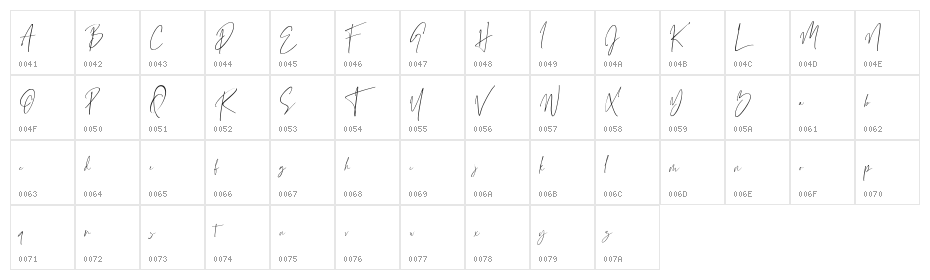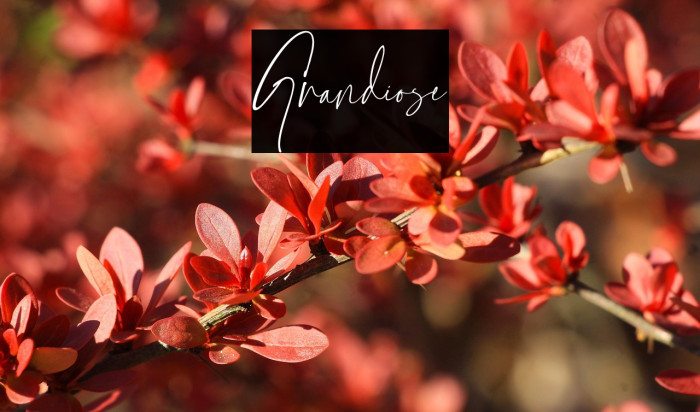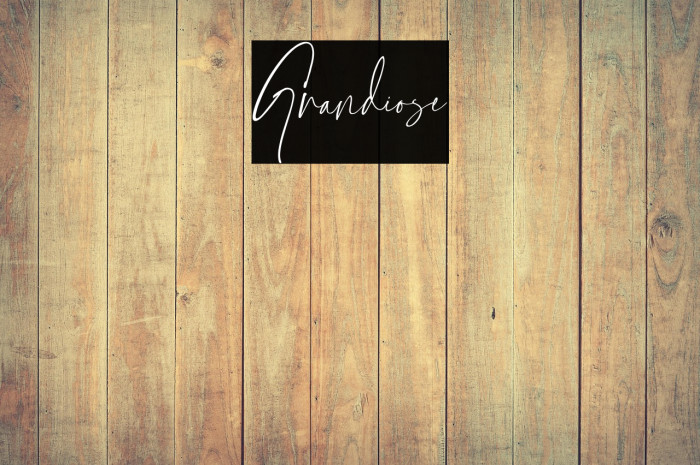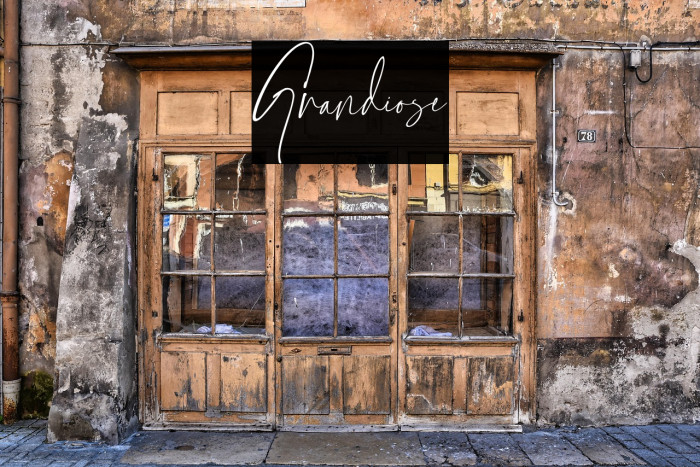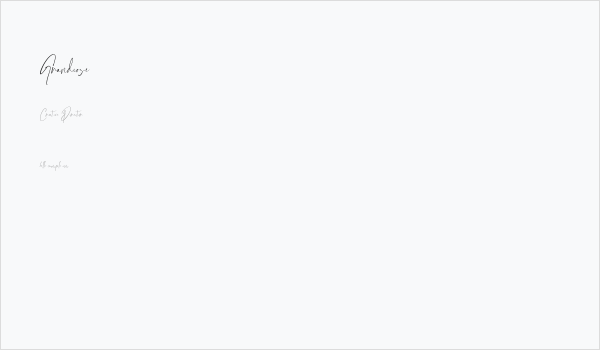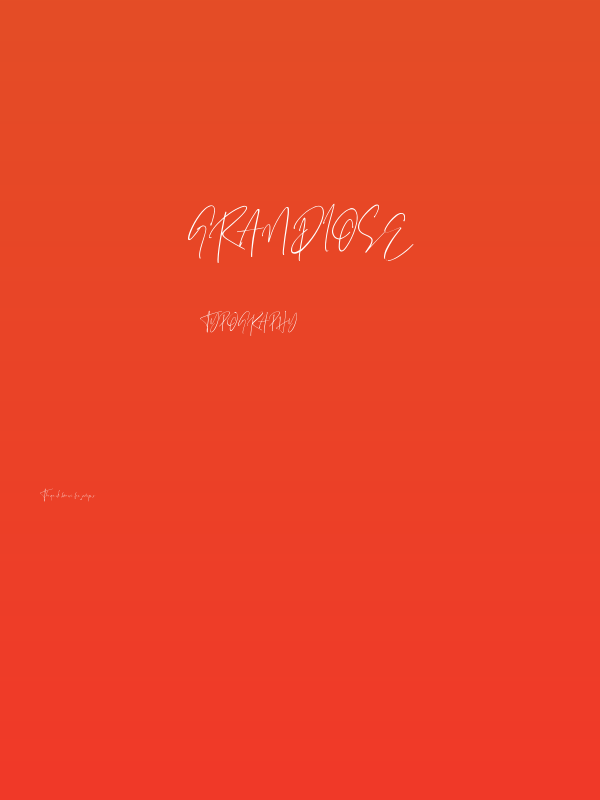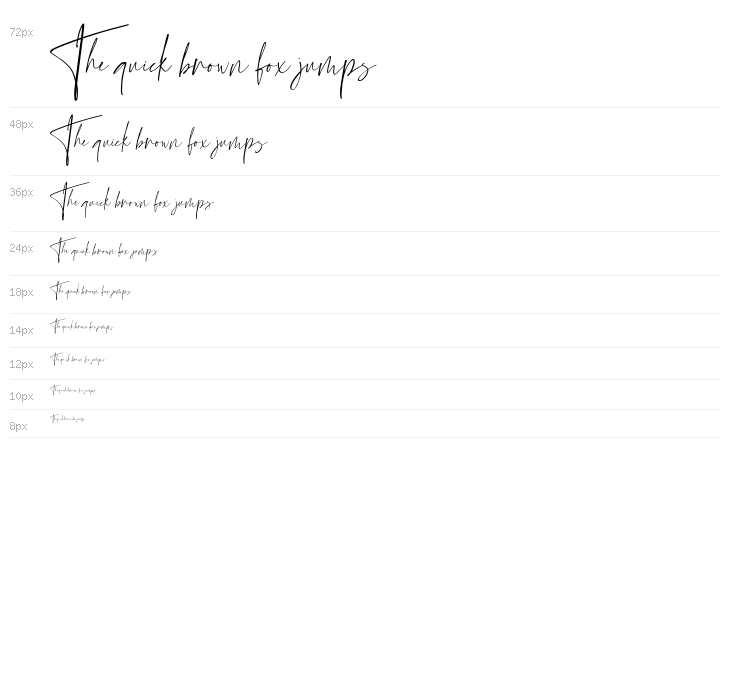
Grandiose Font
Grandiose Description
This font features an elegant and flowing script style, characterized by its sweeping curves and fluid lines. The uppercase letters are bold and dynamic, with a sense of movement that adds a touch of sophistication. The lowercase letters maintain a delicate balance, offering a more refined and subtle appearance. The overall design is reminiscent of handwritten calligraphy, with a modern twist that makes it suitable for contemporary applications. The strokes vary in thickness, providing a medium contrast that enhances readability while maintaining an artistic flair. This font is perfect for projects that require a personal and stylish touch.
| Proposed Projects | Ideal for wedding invitations, branding, greeting cards, and elegant packaging. |